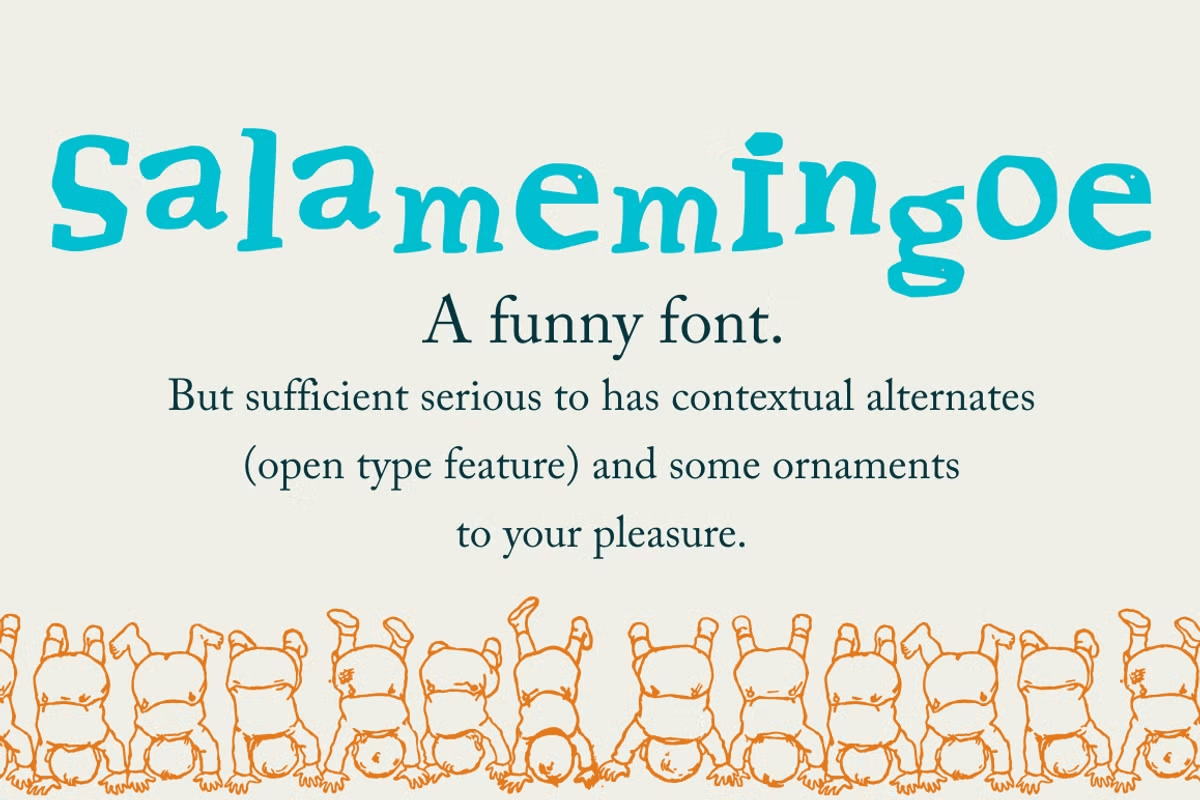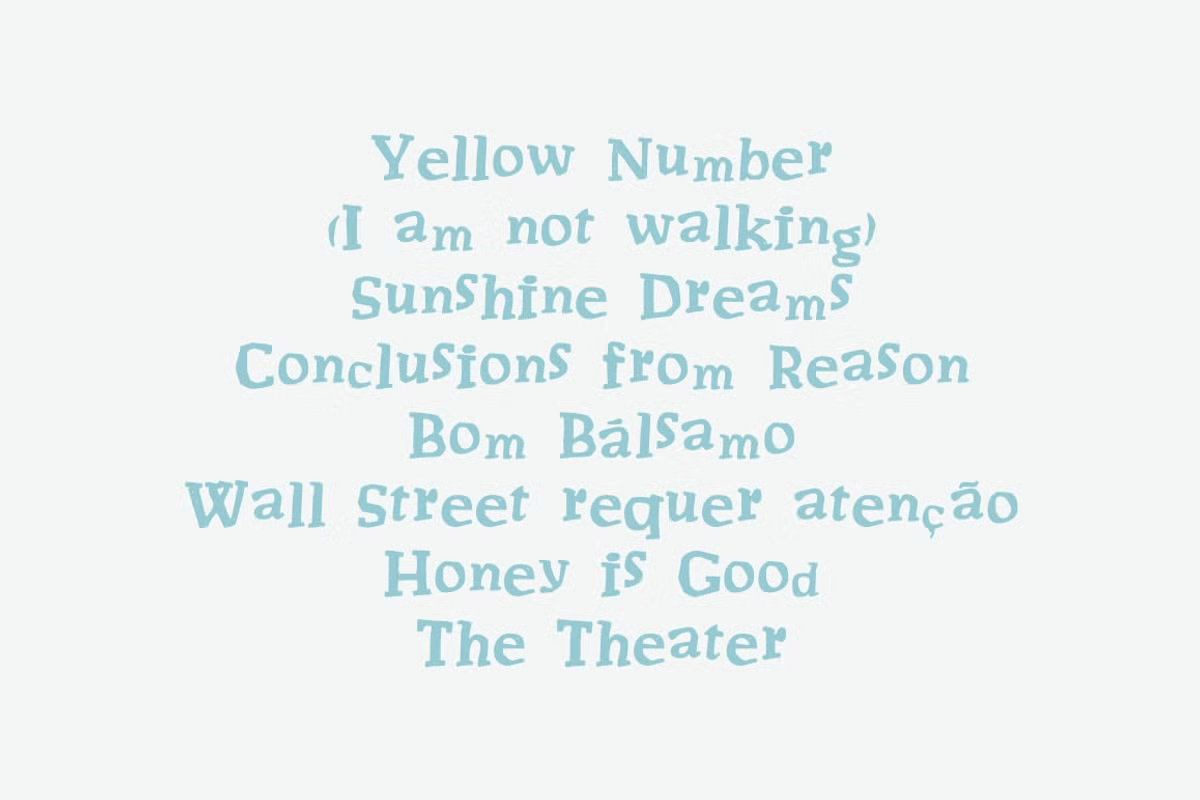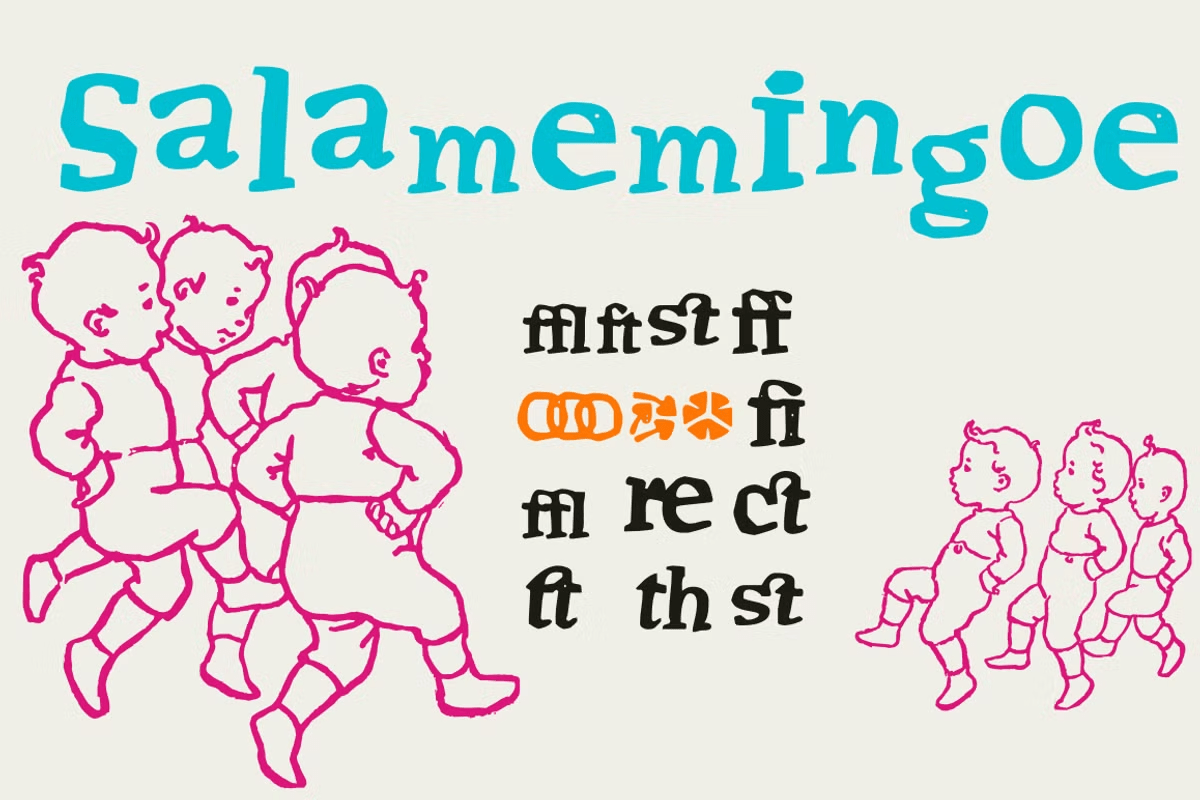
Salamemingoe
Font Family by Intellecta Design
Salamemingoe is a playful, young, jumpy and vibrant display font design. Works great in quirky and children's design projects. A funny font, but sufficient serious to has contextual alternates (open type feature) and some ornaments to your pleasure